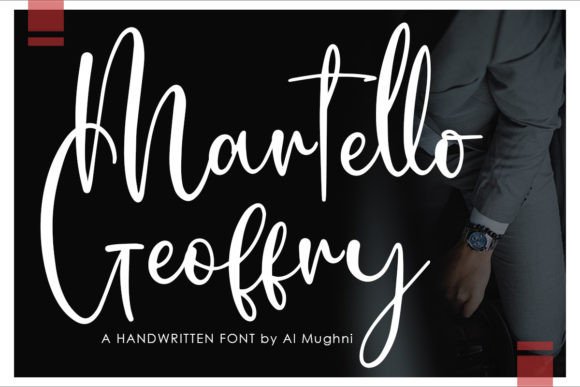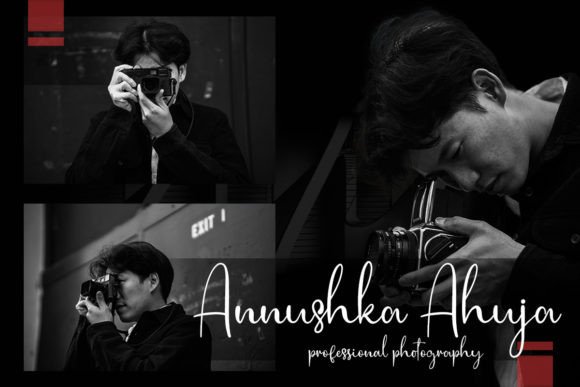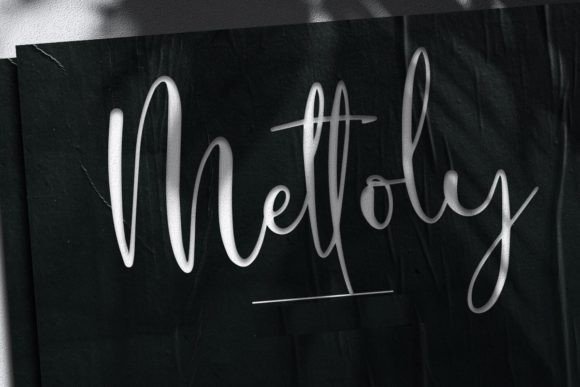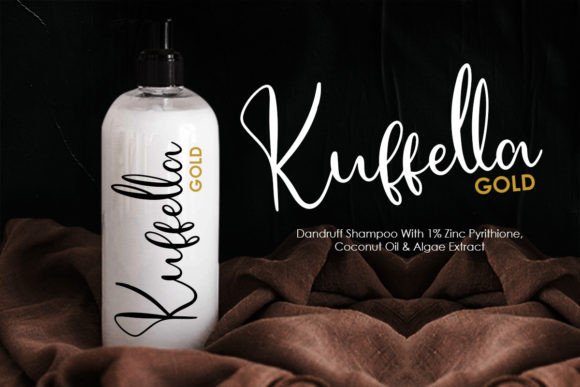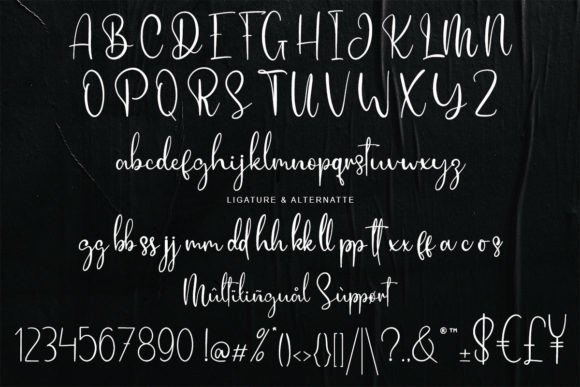
Martello Geoffry Font
Martello Geoffry Font: Elegance Meets Precision
“Martello Geoffry” is a stunning script font that brings sophistication to every design. This carefully crafted typeface is perfect for various creative projects, from branding to invitations and posters.
Key Features of Martello Geoffry
• Elegant Design: Martello Geoffry combines grace with intricate details.
• Versatile Use: Suitable for many projects, enhancing their visual impact.
Martello Geoffry’s refined style is ideal for creating sophisticated logo designs and branding materials that stand out.
Wedding Invitations
The font’s elegant characters are perfect for wedding invitations, adding a touch of class to your special day.
Poster Design
Use Martello Geoffry to create eye-catching posters that convey sophistication and style.
Why Choose Martello Geoffry?
Martello Geoffry is more than just a font; it’s a design tool that can elevate your projects. Its versatility allows it to shine in various contexts, including:
This adaptability makes Martello Geoffry valuable for designers and brands seeking a consistent yet impactful visual identity.
Enhancing Your Design Process
By using Martello Geoffry, you open up a world of creative possibilities. Its elegant style can add a touch of sophistication to any project, whether you’re working on digital or print media. Here’s how Martello Geoffry can enhance your design process:
• Creating Contrast: Pair Martello Geoffry with sans-serif fonts for interesting visual contrast.
• Adding Elegance: Use Martello Geoffry for headlines or signatures to add refinement.
• Customization: Utilize the font’s swashes and alternates to create unique designs.
If you’re looking for a font that combines elegance with meticulous craftsmanship, Martello Geoffry is an excellent choice. It’s perfect for projects that need sophistication and charm. With Martello Geoffry, your designs will stand out with a refined flair.
Explore the possibilities with Martello Geoffry and see how this calligraphy-inspired typeface can transform your designs. From elegant logos to impactful marketing materials, Martello Geoffry offers the perfect mix of style to enhance your visual projects.